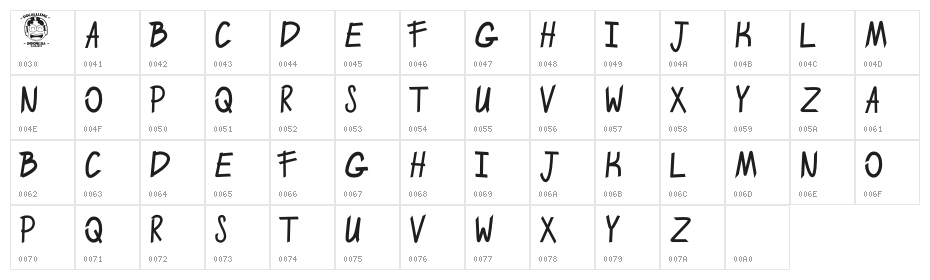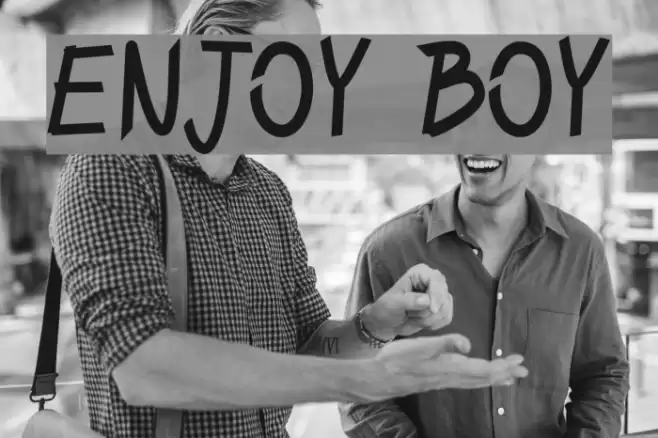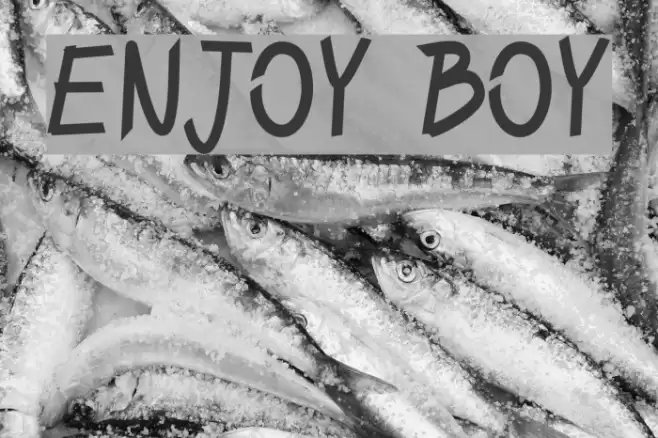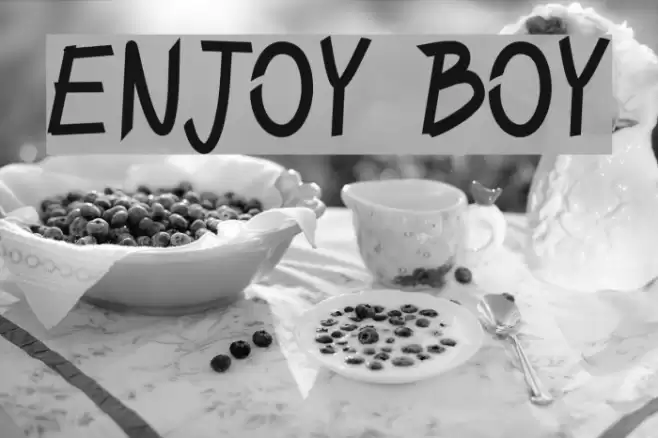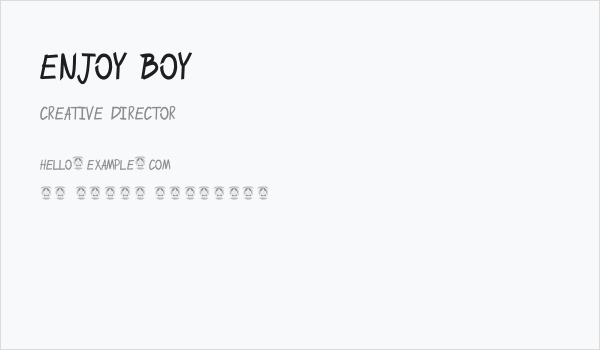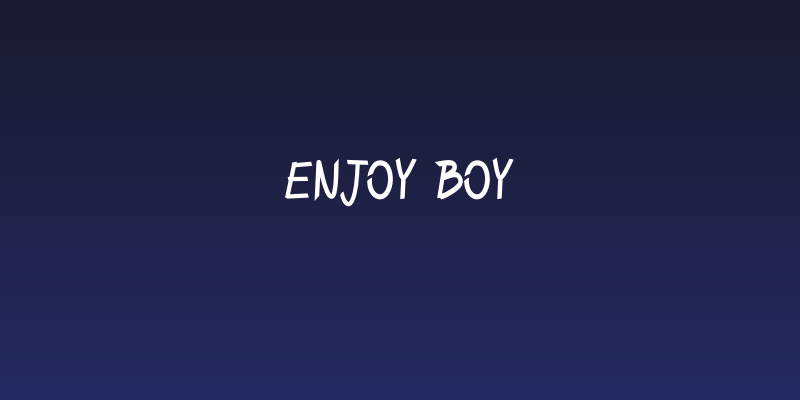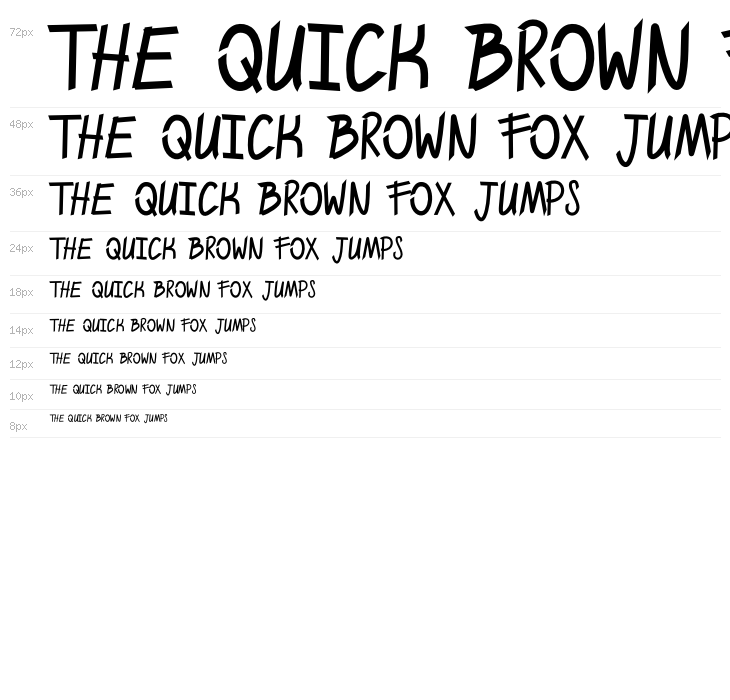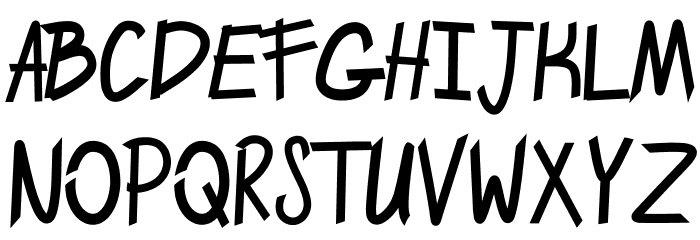
ENJOY BOY Font
ENJOY BOY Description
This font features a playful and dynamic style, characterized by its irregular, hand-drawn appearance. The letters are slightly slanted, adding a sense of movement and energy. The strokes are bold and uneven, giving it a casual and informal look. This font is ideal for projects that require a fun and lively touch, such as children's books, comic strips, or playful branding. Its unique style makes it stand out, while still being legible and clear.
| Proposed Projects | Ideal for children's books, comic strips, playful branding, and casual invitations. |